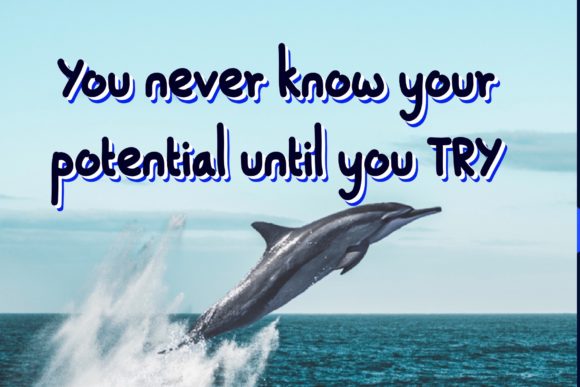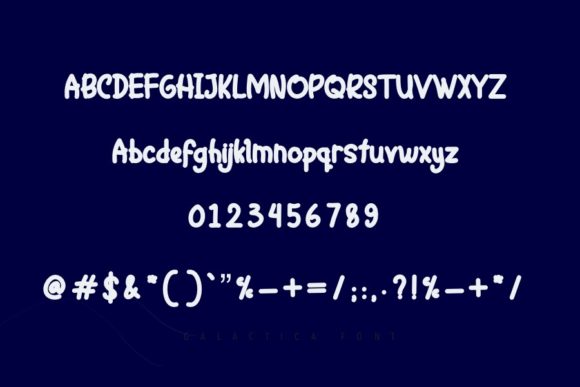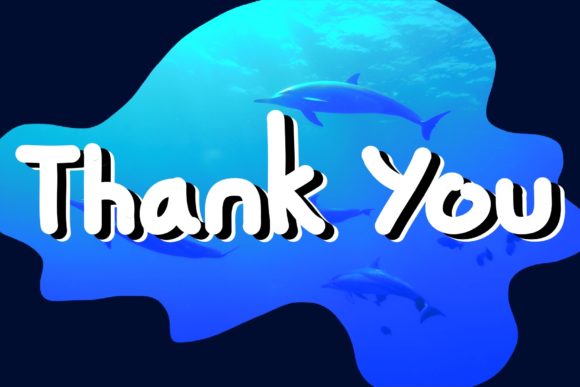
The Perfect Blend of Whimsy and Elegance: Introducing Dolphin Bay Font
Have you ever been working on a design project, and suddenly, the perfect font pops into your head? For many designers, this moment of creative clarity is what sets their work apart. For me, it was the discovery of the enchanting Dolphin Bay Font. Its unique blend of handwritten charm and sophistication is a game-changer for any project.
Whether you’re creating a bold headline or adding a touch of personality to a complex background, Dolphin Bay Font is the perfect choice. Its versatility and charm make it a valuable asset for designers looking to elevate their work. With its effortless elegance, this font is sure to become a true favorite among creatives.
As a designer, you know the importance of having the right tools at your disposal. Dolphin Bay Font is a valuable addition to any design arsenal, and its unique style is sure to set your work apart from the crowd.
Dolphin Bay Font Key Features
- Character Set: The font includes a comprehensive character set, including Latin, Cyrillic, and Greek alphabets, as well as a range of punctuation and symbol characters.
- Unique Characteristics: The Dolphin Bay Font features a distinctive, modern design with a range of unique characteristics, including rounded edges and subtle texture effects, which give it a unique and eye-catching appearance.
- Legibility and Readability: The font is designed to be highly legible and readable, even at small sizes, making it an ideal choice for use in a wide range of applications, from body text to headlines and titles.
- Font Weight and Style: The Dolphin Bay Font is available in a range of font weights and styles, including regular, bold, italic, and bold italic, allowing users to achieve a range of visual effects and emphasize key information.
Dolphin Bay Font Review
As a designer, I’ve had the chance to work with Dolphin Bay Font, and I’m excited to share my thoughts on this unique font. ✨ One of the things that stands out about Dolphin Bay is its playful, whimsical feel. The font’s rounded edges and soft curves evoke a sense of warmth and approachability, making it perfect for designs that need a friendly touch.
Another aspect I appreciate about Dolphin Bay is its versatility. It works well in a range of contexts, from children’s books and educational materials to marketing campaigns and social media graphics. ✨ The font’s adaptability is a testament to its well-designed nature.
While Dolphin Bay is an excellent font, there are a few areas where it falls short. ⚠️ One limitation is its limited language support. The font is only available in a few languages, which may be a problem for designers working on international projects.
Overall, I’m impressed with Dolphin Bay Font. Its unique design and versatility make it a great addition to any designer’s toolkit. While it may have some limitations, I believe the benefits outweigh the drawbacks. If you’re looking for a font that’s both fun and functional, Dolphin Bay is definitely worth checking out.
- Unique, playful design
- Soft, rounded edges
- Highly versatile
- Limited language support
Tips for Getting the Most Out of Dolphin Bay Font
To get the most out of Dolphin Bay Font, try using it in combination with other creative elements, such as illustrations or graphics. Experiment with different font sizes and styles to create visual interest. Additionally, consider using Dolphin Bay Font in conjunction with other fonts to create a unique and eye-catching visual identity.